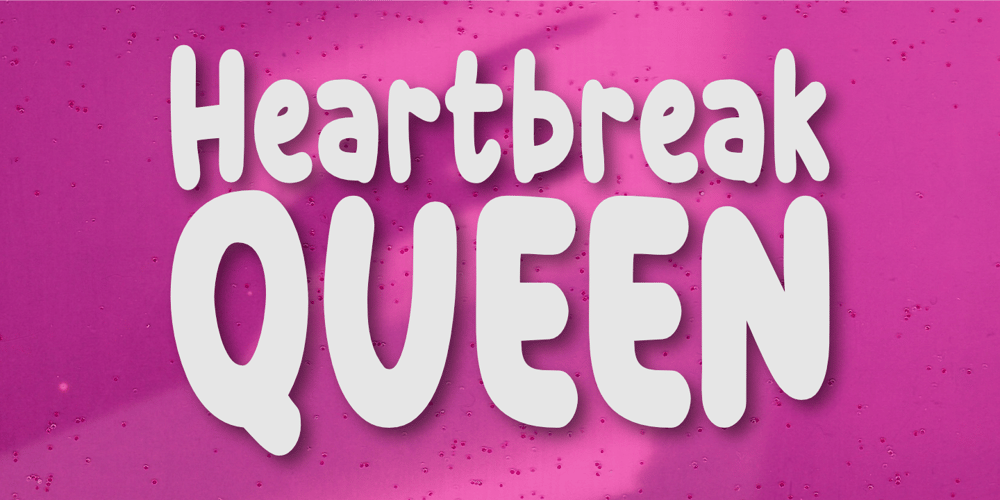
Heartbreak Queen Font Family was designed by Nurul Hidayani and published by Olivetype. Heartbreak Queen contains 1 styles and family package options. Introducing Heartbreak Queen, a cute and bold font for headlines, designed to make your messages pop like never before. Say goodbye to regular fonts that don’t match your personality – with this font, every word will radiate confidence and style. Whether you’re crafting a witty caption or designing eye-catching graphics, this font could elevate your content from mundane to magnificent.Heartbreak Queen features : Standard Latin Numbers, symbols, and punctuations Multilingual Support. Fully accessible without additional design software Simple Installations Works on PC & Mac Thank You.